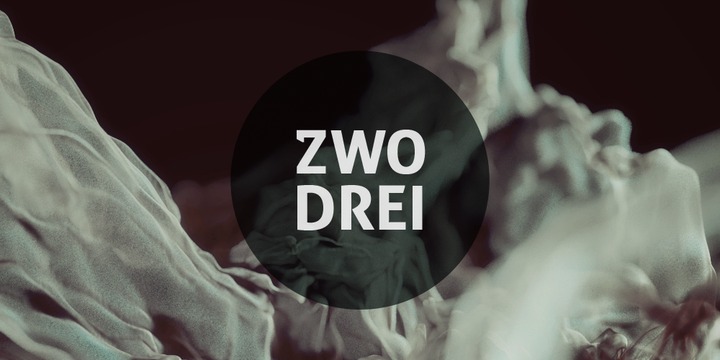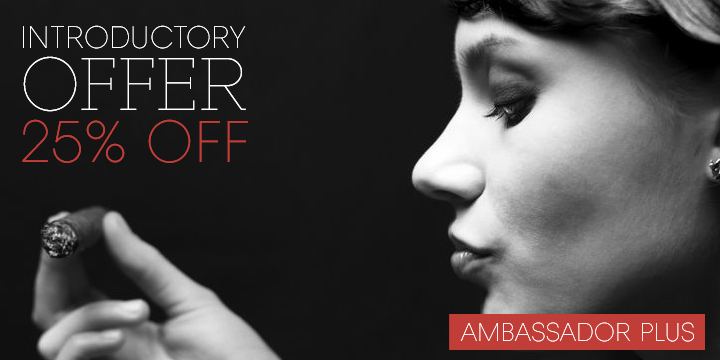
Mensura Slab Font
Mensura Slab
Mensura Slab is set of four geometric fonts created by Pablo Balcells and published by Graviton. With its modular finish and subtle rounding, Mensura Slab is looking great as a display type but also when composing longer texts.
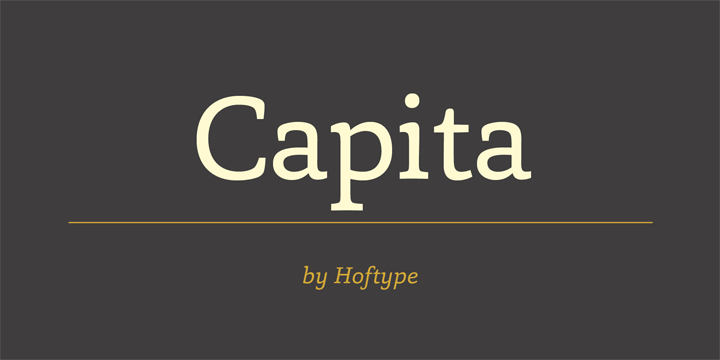Cyntho Slab Pro Font
Cyntho Slab Pro
Cyntho Slab Pro is a geometric slab serif typeface created by Andriy Konstantynov and published by Mint Type. It is part of the Cyntho Pro family perfect for magazine, headline, poster, advertising etc. Enjoy!
Hilton Serif Font
Hilton Serif
Hilton Serif is a  typeface created & published by Juraj Chrastina that merge perfect with Hilton Sans. It is recommanded for magazine, headline, display etc.
Otsu Slab Font
Otsu Slab
Otsu Slab is a geometric slab-serif typeface created by Thierry Gouttenègre and published by TeGeType, recommanded for text and titling applications.Enjoy!
Leto One Font
Leto One
Leto One is a slab-serif typeface created by Elena Kowalski and published by Glen Jan that is perfect for magazine, headline, logo, display etc. Have fun!
Quadon Font
Quadon
Quadon is a slab-serif typeface created & published by Rene Bieder. Quadon family includes 18 modern, clear and infinitely flexible fonts. Also it has a wide range of typographic features and alternative glyphs. Enjoy!
Foro Rounded Font
Foro Rounded
Foro Rounded is a rounded slab-serif typeface created by Dieter Hofrichter and published by Hoftype that commes with 16 syles (symbols,arrows,standard ligatures etc) in OpenType format. Enjoy Foro Rounded!
Sanchez Sans Font
Sanchez Sans
Sanchez Sans is a typeface created by Daniel Hernández and published by Latinotype. The Sanchez Sans family includes 12 geometric slab sans fonts that are more robust and have straight edges.
Capita Font
Capita
Capita is a typeface created by Dieter Hofrichter and published by Hoftype. This approach a new font style with elements strong in appearance but with controlled movements warm. You’ll find 12 fonts perfect for newspaper, logo, symbols etc.
Brix Slab Font
Brix Slab
Brix Slab is a typeface created by Hannes von Döhren & Livius Dietzel and published by HVD Fonts. Perfect for magazines, newspapers and digital devices, you’ll find a big family font with 12 complex fonts.
Zwodrei Font
Zwodrei
Zwodrei is a typeface created by Lukas Bischoff and published by artill. It is a modern font perfect for headline, magazine. Have fun!
Bricklayers Font
Bricklayers
Bricklayers is a typeface created by Ralph M. Unger and published by RMU. This font is perfect for headlines, posters and if you want to build your own wall for your projects, you cannot miss this typeface!
Sommet Slab Font
Sommet Slab
Sommet Slab is a typeface created by Jaremy Dooley and published by insigne. This font is an updated version of the Sommet familly. If you want a better font buy it and you’ll not regret.
Breakers Slab Font
Breakers Slab
Breakers Slab is a typeface created by Nikola Kostic and published by Kostic. It is a versatile typeface, companion to the font Breakers. The strenght of this font is in headlines and legible in text.
Distefano Slab Font
Distefano Slab
Distefano Slab is a typeface created by Ruben Fontana and published by Tipo. This font is especialy created for editorial products, print and digital media. You must have it!
Echoes Slab Font
Echoes Slab
Echoes Slab is a typeface created by Elena Kowalski and published by Glen Jan in 2012.
Ambassador Plus Font
Ambassador Plus
Ambassador Plus is a font created and published by Juraj Chrastina. It is perfect to use this elegant typeface for magazines, cosmetics packaging, advertising etc.